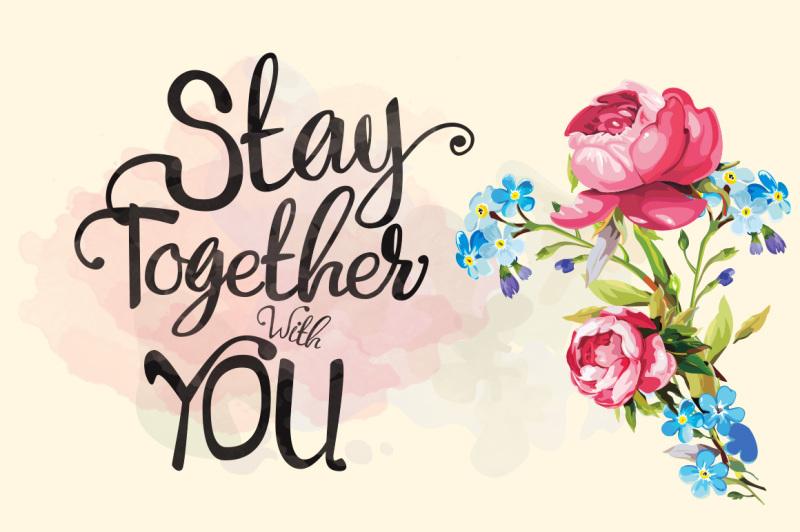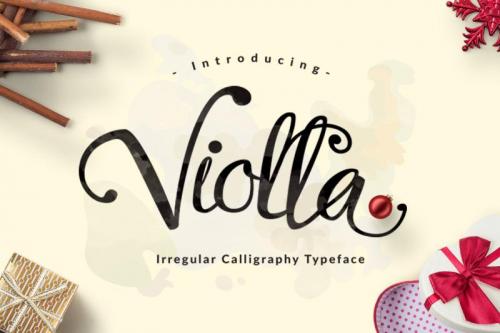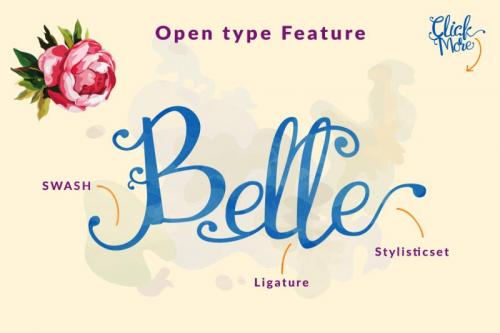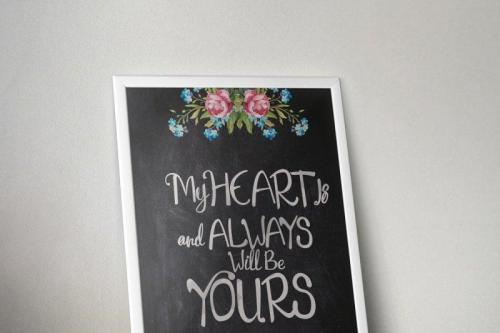
Violla Script is another lovely modern calligraphy typefaces, which is combining the style of classic calligraphy with an modern style.
The Features of this fonts is:
- Discretionary Ligatures
- Stylistic Alternates
- Initial and Terminal Forms that setting up in Contextual swashes ( This fonts is automatically setting the initial and terminal forms as default, and if you want to turn off the initial and terminal just click the button of the contextual swashes, it more easier than opening the glyph tab)
Feel free to explore your imaginations. Can be used for various purposes, such as greeting card, editorial, branding, wedding invitation, quotes etc.